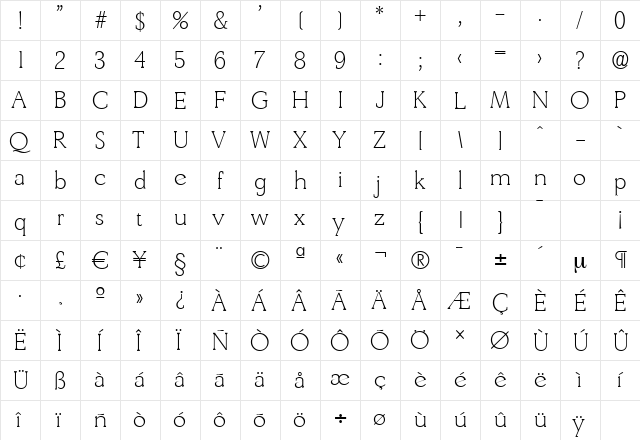
DerringerSerial-Xlight Regular Font Preview
DerringerSerial-Xlight Regular
DerringerSerial-Xlight Regular Font Details
Design Context for DerringerSerial-Xlight Typeface
DerringerSerial-Xlight takes a measured approach to typography — its balanced proportions and neutral character make it a reliable workhorse for both digital and print work. Its slender proportions lend an understated elegance to any composition.